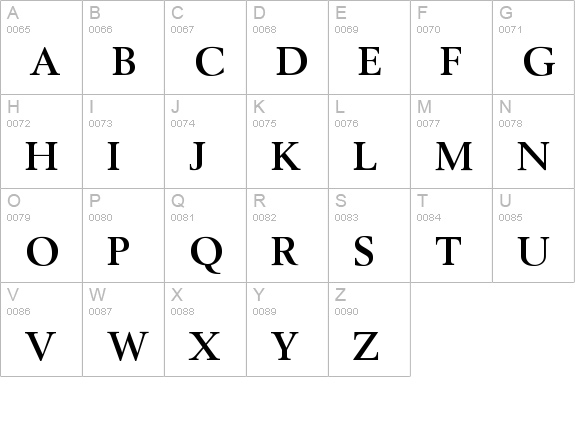
Berling Semi-Bold Font Details
Berling Semi-Bold is a strong, high-contrast variant in the Berling typeface family \xE2\x80\x94 well suited to headlines, attention-grabbing titles, and strong calls-to-action.
Berling Semi-Bold is a versatile and modern typeface that strikes the perfect balance between elegance and readability. Its bold yet refined design makes it ideal for headlines, titles, and other display purposes. The semi-bold weight provides a strong presence on the page without being overly heavy. This font features clean lines and distinctive letterforms that give it a contemporary edge while maintaining a classic feel. Whether used in print or digital projects, Berling Semi-Bold adds a touch of sophistication to any design. Best of all, Berling Semi-Bold is available for free download at FontsMarket.com. This means you can easily access this high-quality font for your personal and commercial projects without any cost. Don't miss out on the opportunity to enhance your designs with this stylish and versatile typeface.